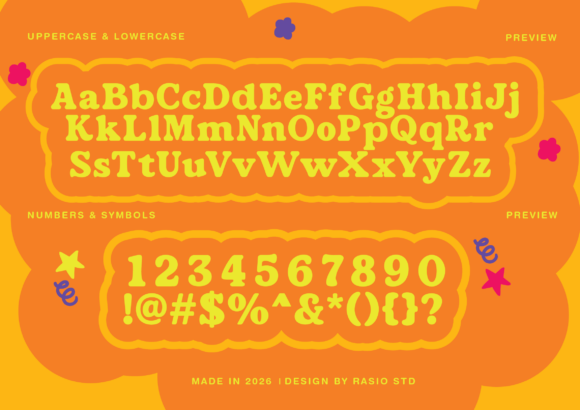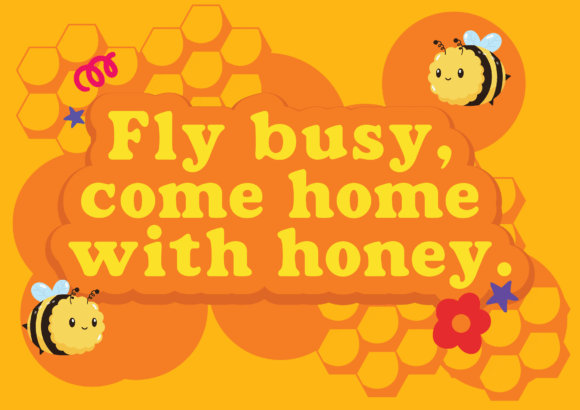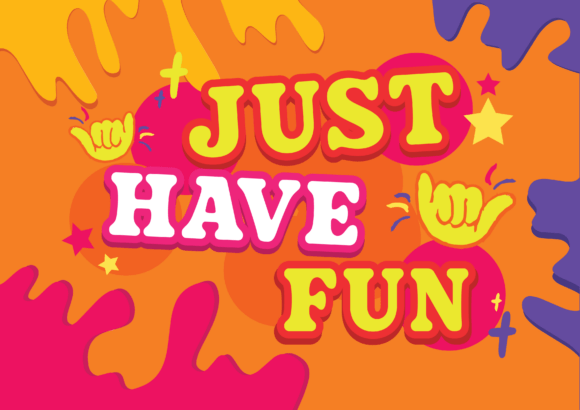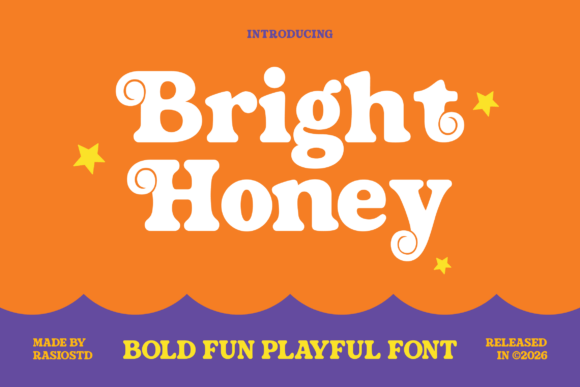
Introduction to Bright Honey Font
Bright Honey is a cheerful, bold display font that radiates fun and personality.
Featuring quirky swirls on selected characters and bubbly rounded forms, it’s the perfect choice for playful branding, kids-themed projects, and retro-inspired visuals This typeface includes full uppercase and lowercase sets, numbers, punctuation, and multilingual support, all designed with a vibrant tone.